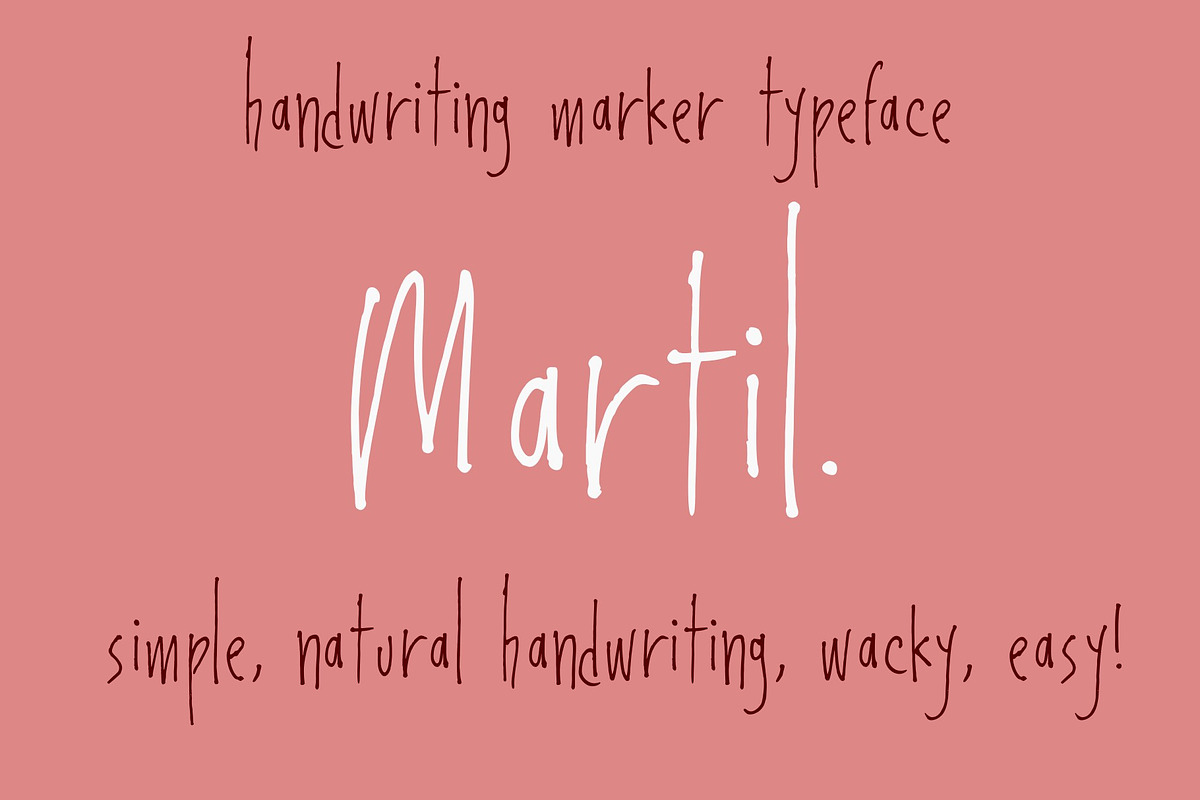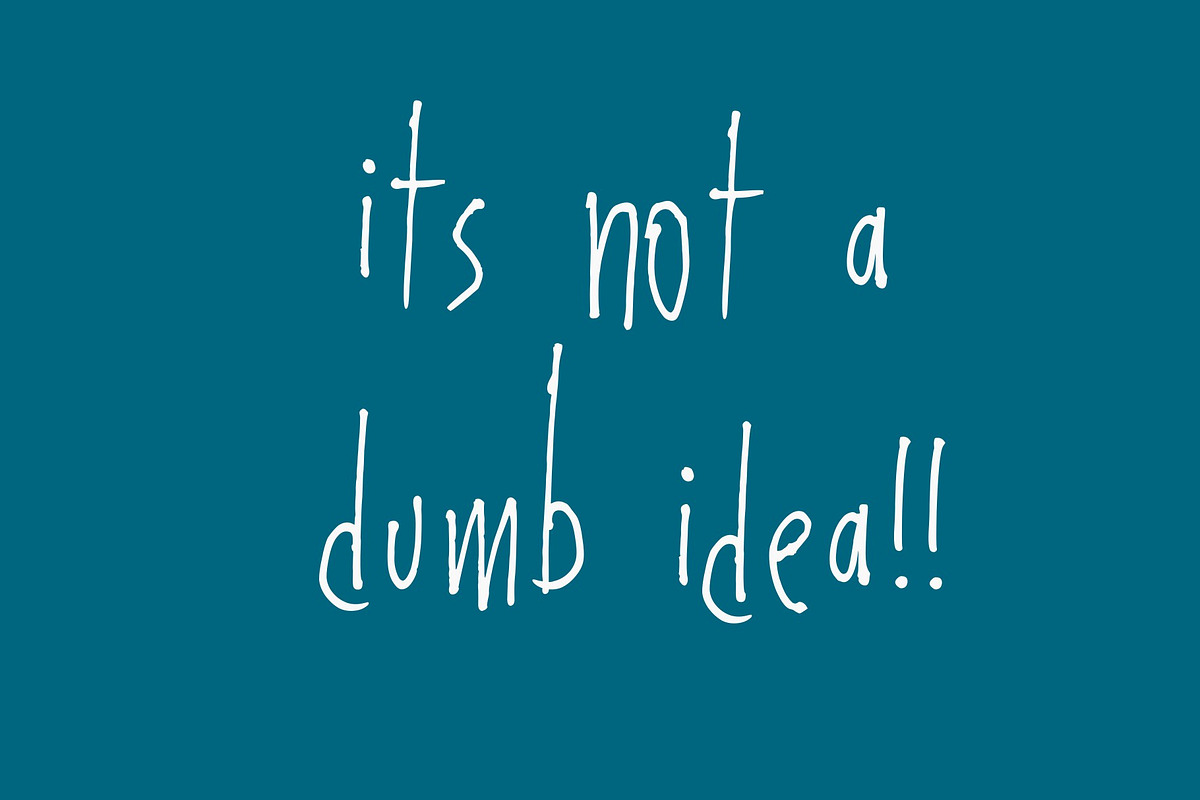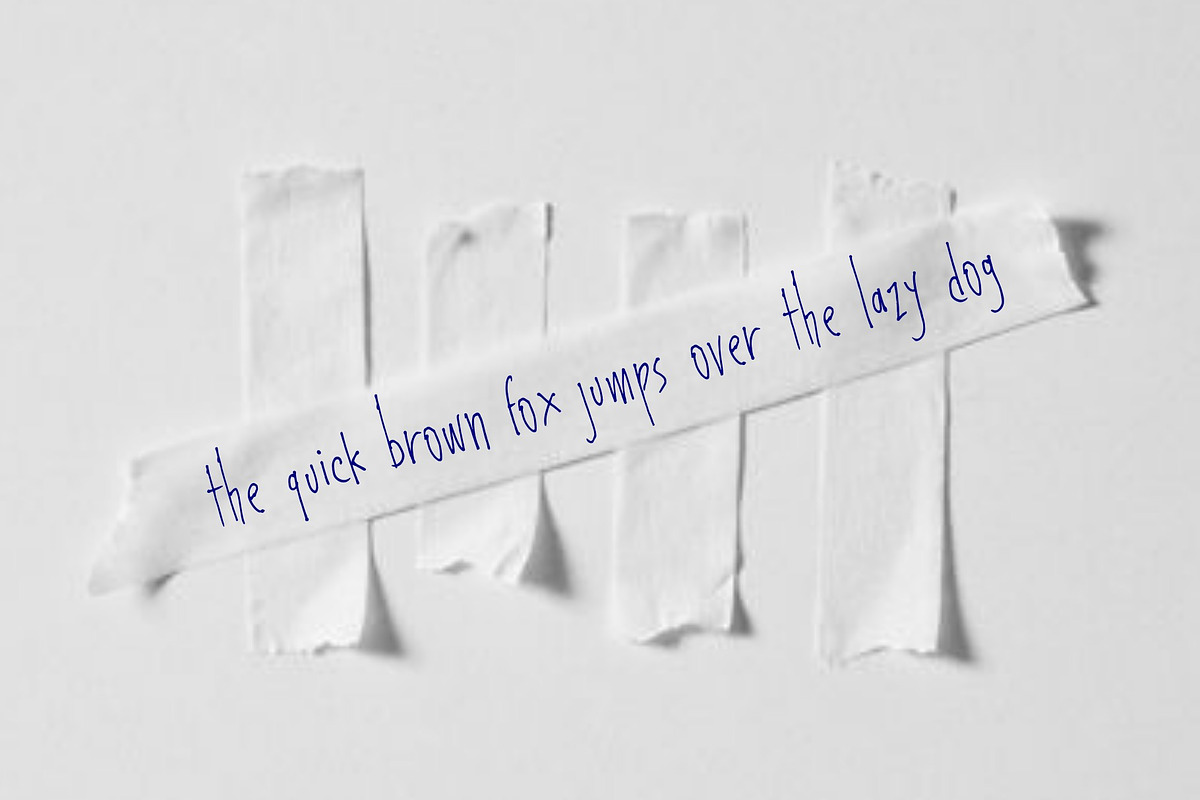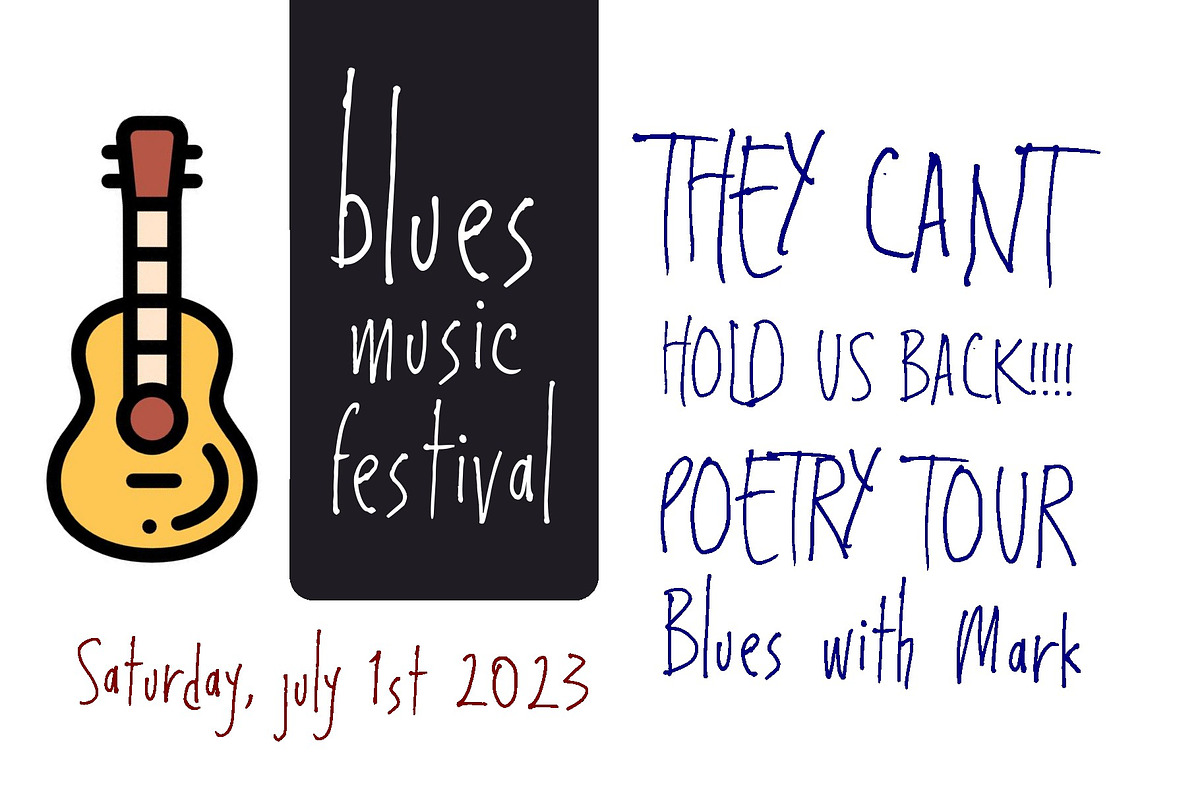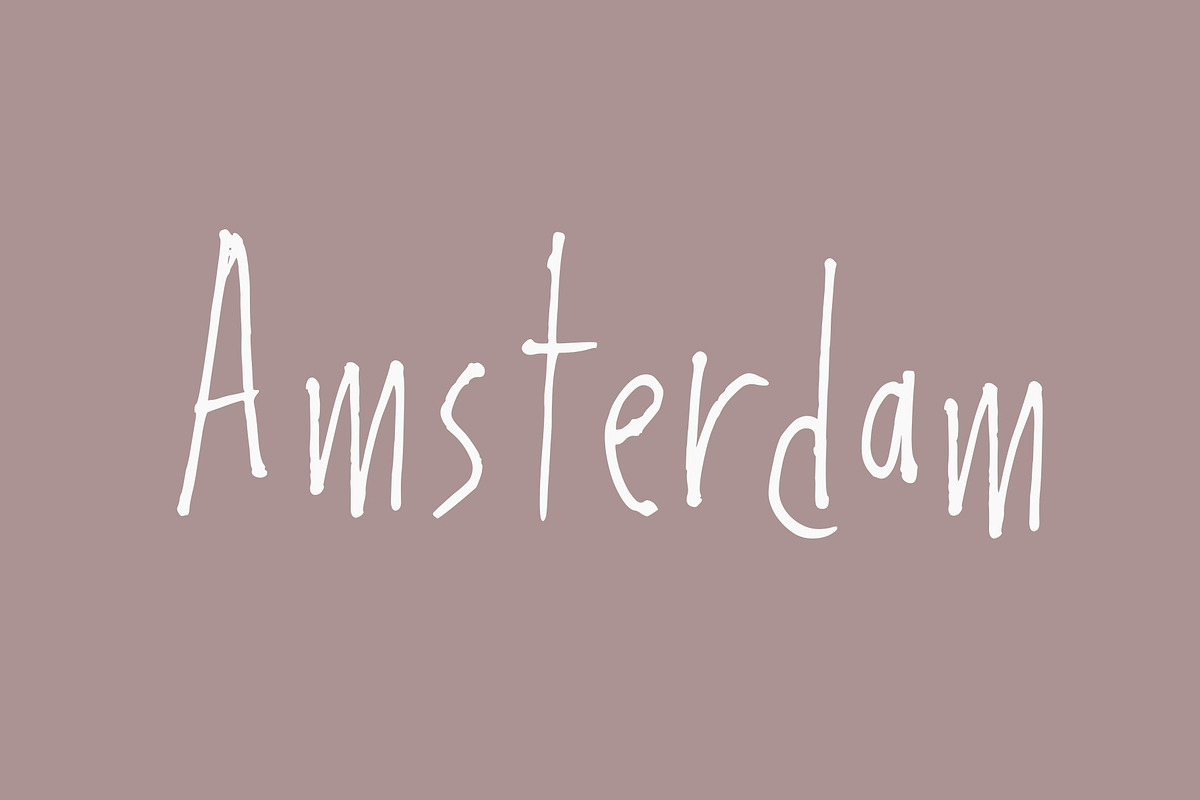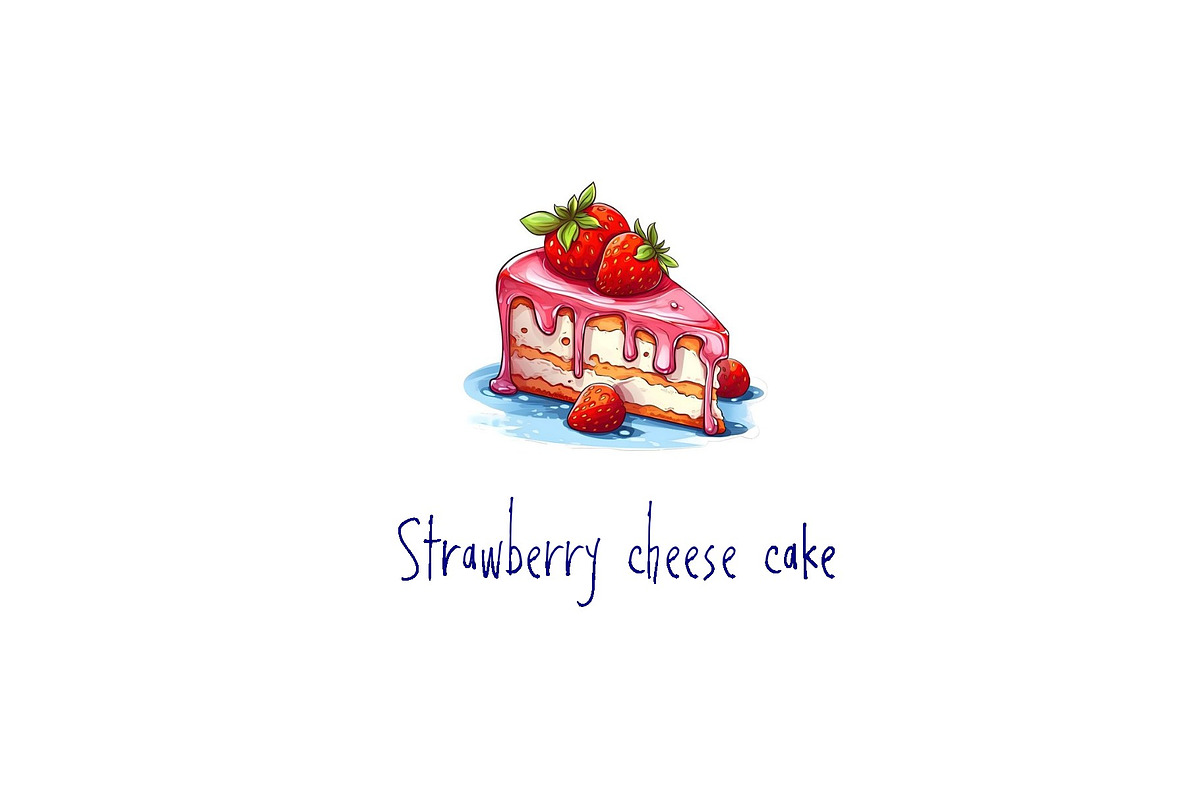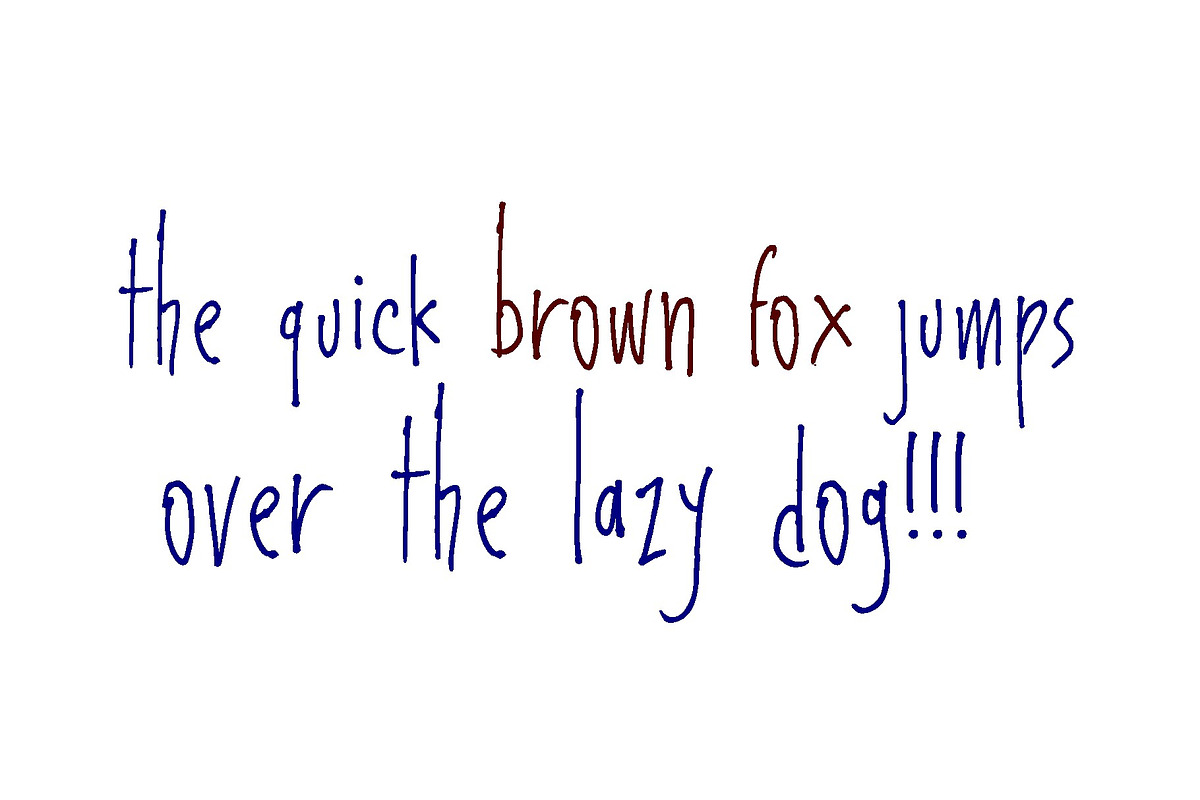
Martil - Handwriting Font
Experience the organic appeal of Martil, a unique marker font that mirrors authentic, freehand handwriting. This easy-to-use typeface carries an engaging, creative and spirited vibe. Its distinct styling recreates the wacky and whimsical charm of casual, hand-drawn penmanship. Martil - transforming simple strokes into expressive communication!